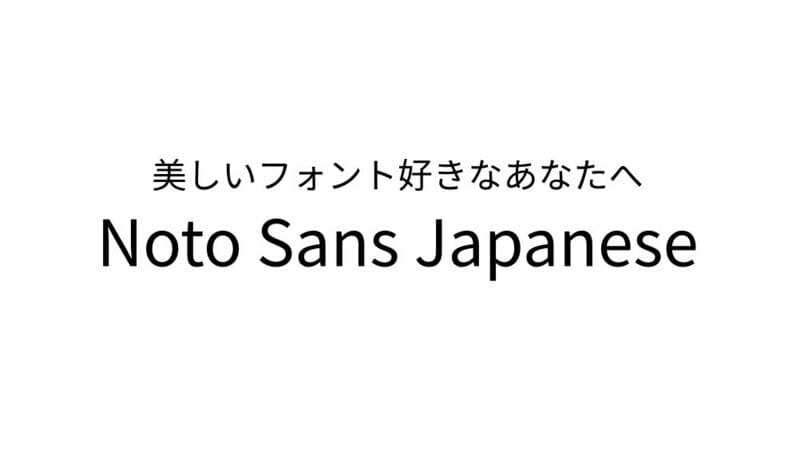
Noto Sans Japanese Font
Noto is a global font collection for writing in all modern and ancient languages. Noto Sans JP is an unmodulated (“sans serif”) design for the Japanese language and other languages used in Japan. It covers Hiragana, Katakana and Kanji. It also supports Latin, Cyrillic, Greek and Hangul. It has 65,535 glyphs.